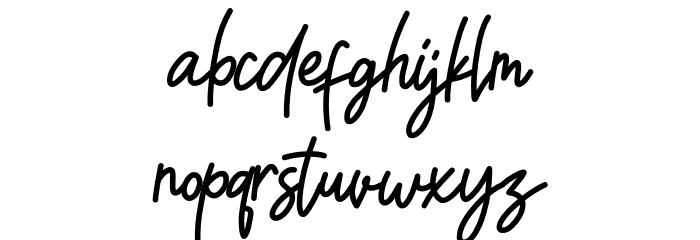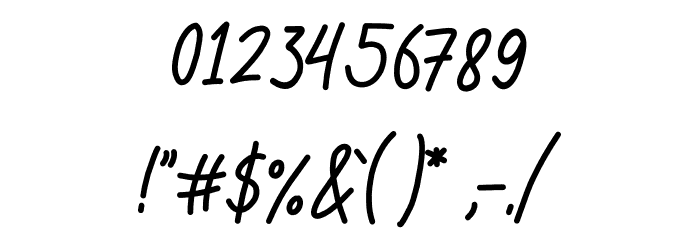
WILLONALINE DEMO Font
This font exudes a casual and personal touch with its handwritten style, characterized by smooth, flowing lines and a natural, organic feel. The letters are slightly slanted, giving a sense of movement and dynamism. The uppercase and lowercase letters maintain a consistent style, with a playful yet elegant appearance. Numbers and special characters are crafted with the same attention to detail, ensuring a cohesive look across all text elements. The font's design is perfect for adding a personal touch to any project, making it ideal for creative and artistic applications.
A casual, handwritten font with smooth, flowing lines and a personal touch.
- Font: WILLONALINE DEMO
- Proposed Projects: Ideal for greeting cards, invitations, personal branding, and creative projects.
- Category: Handwritten
- Overall Style: Casual
- Use Case: Logos, Invitations, Personal Branding